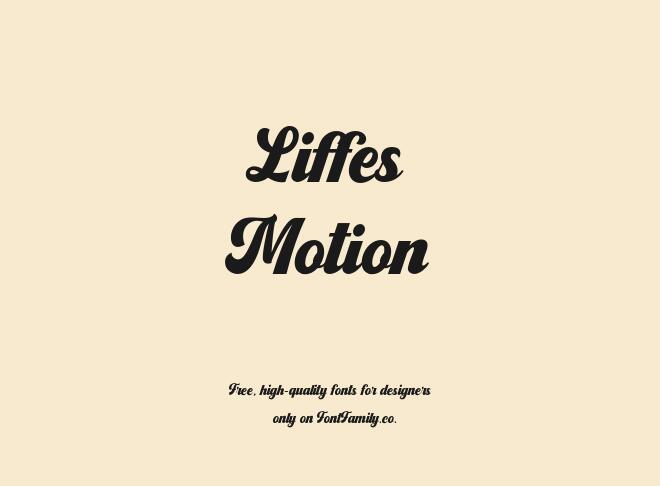
Liffes Motion Font
Liffes Motion Font is a playful and modern handwritten font, brought to you by Creative Foundry. Its unique and dynamic letterforms make it a versatile choice for a wide range of design projects. This font is perfect for creating logos, headers, social media posts, and much more. It exhibits a lively and energetic vibe that can instantly uplift the aesthetics of your design. Compared to other fonts, Liffes Motion stands out with its unique character and style. Its handwritten style gives a personal touch to your designs, making them more inviting and approachable. It's a great choice for designers looking for a font that is both aesthetically pleasing and functional. Its modern and playful style is bound to make your designs stand out. Download Liffes Motion Font today and bring your designs to life.